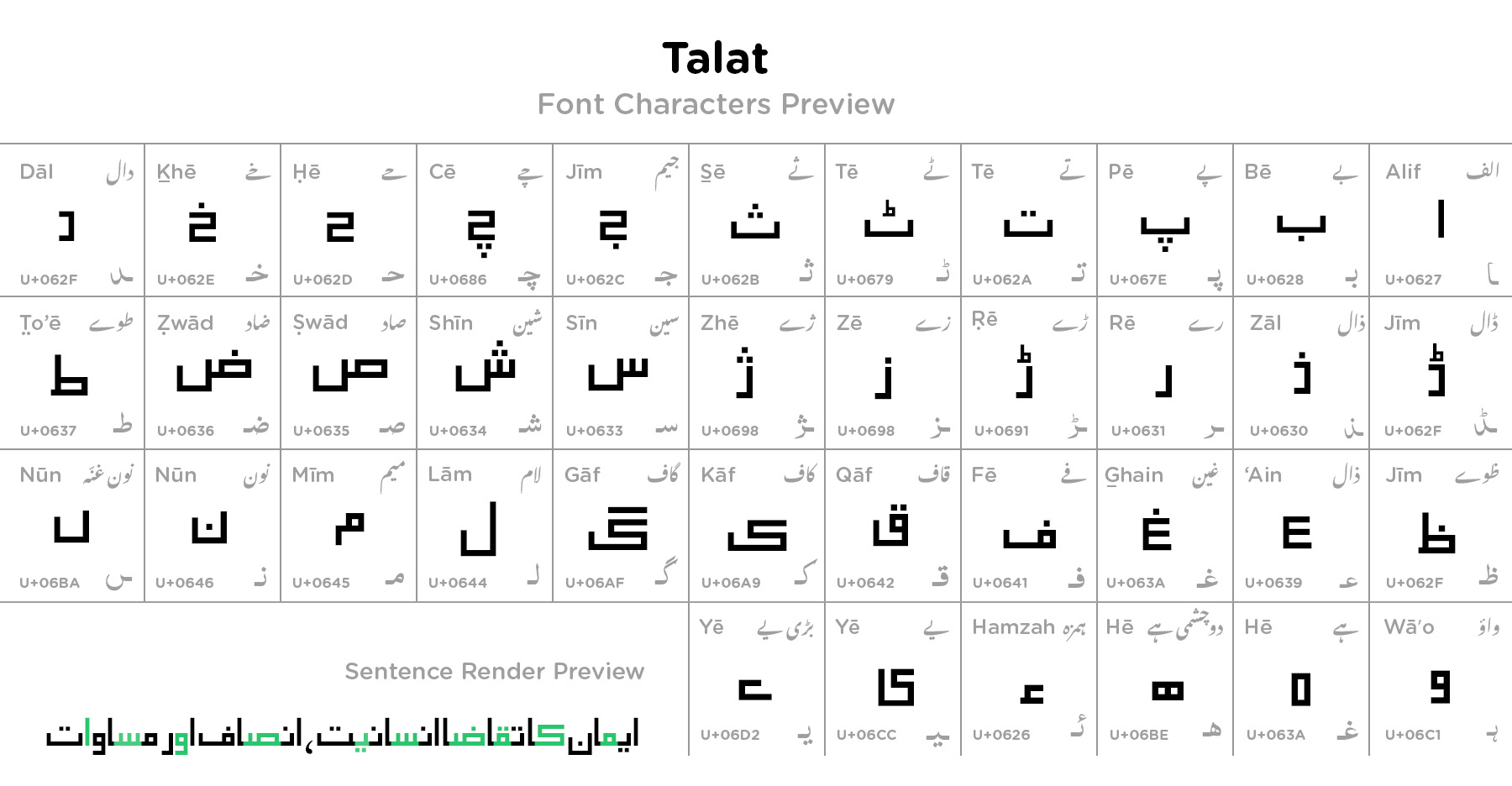
Talat is a TrueType Arabic font that was designed by Syed Manzar Hasan Zaidi who worked for Axis Softmedia Pvt. Ltd. Thus, this font is the property of Axis Softmedia Pvt. Ltd. It has vast character set of 444 and 497 number of glyphs. It has support for not only Arabic but also for Latin and Greek. Moreover, it is compatible with 11 Unicode blocks including Basic Latin, Arabic, General Punctuation, Currency Symbol, among others. It is a non-cursive script therefore is highly readable even when displayed in smaller size. The letters are thick, wide, filled, and have sharp edges. Talat is mostly used for headlines and titles that need to be easily seen or some emphasized texts on posters or other branding purposes. However, the large, bold letters can make it difficult to read text that is more than a few sentences long.